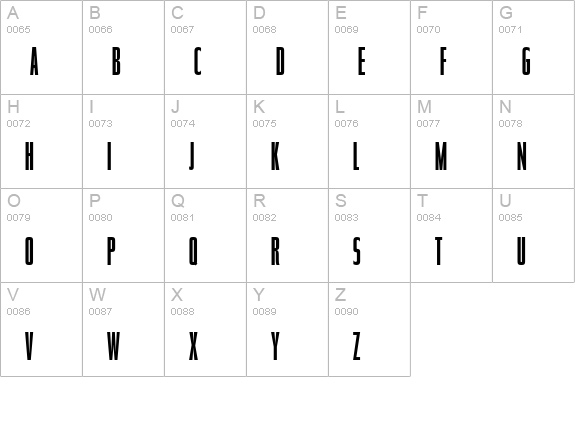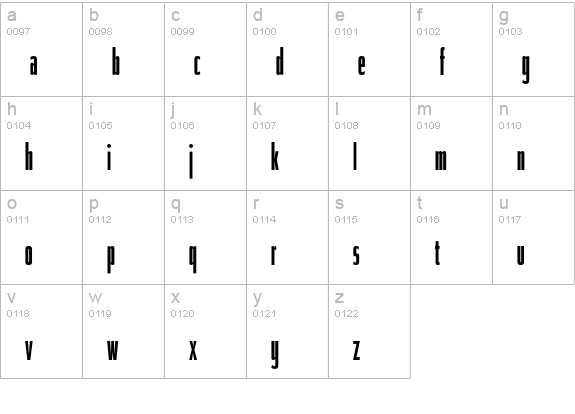
Tasse Regular Comp is the standard, neutral variant in the Tasse typeface family \xE2\x80\x94 well suited to general body text, paragraphs, and standard typographic work.
Introducing Tasse Regular Comp font, a versatile typeface that effortlessly combines elegance and modernity. With its clean lines and balanced proportions, this font exudes a sense of professionalism and sophistication, making it perfect for a wide range of design projects. Tasse Regular Comp font offers a wide range of characters, including uppercase and lowercase letters, numerals, punctuation marks, and special glyphs. Its smooth curves and consistent letterforms ensure legibility at any size, making it suitable for both print and digital applications. One of the most appealing aspects of Tasse Regular Comp font is that it is available for free download at FontsMarket.com. This means that designers, creatives, and enthusiasts alike can easily access this remarkable typeface without any cost. Whether you are working on a personal project or a professional assignment, Tasse Regular Comp font offers a high-quality solution that adds a touch of elegance to your designs. The versatility of Tasse Regular Comp font is truly remarkable. It can be used for various purposes, including branding, logo design, advertising, editorial layouts, packaging, and more. Its timeless appeal allows it to seamlessly adapt to different design styles and themes, ensuring that your creations stand out from the crowd. Don't miss out on the opportunity to enhance your design projects with the beauty and flexibility of Tasse Regular Comp font. Download it for free at FontsMarket.com and unlock a world of possibilities for your typography needs.